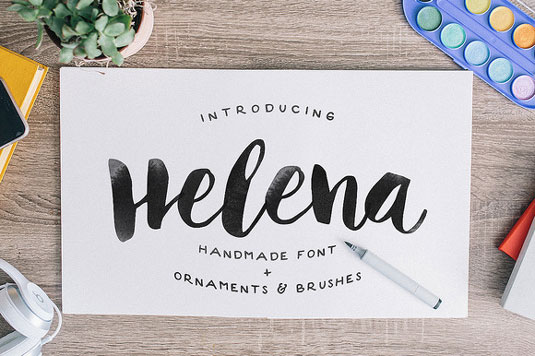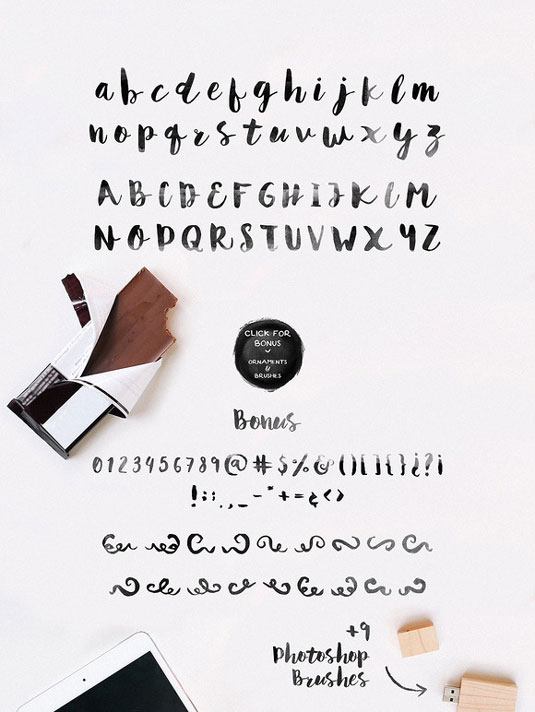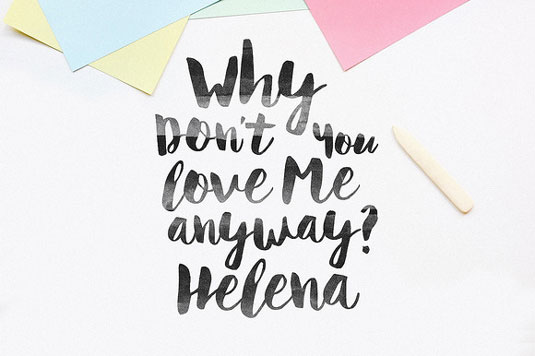
Font of the day: Helena
Helena by Noe Araujo
Give your designs an authentic handcrafted feel with today's typeface of choice, Helena. Created by Mexico-based designer Noe Araujo, Helena is perfectly suited to stationery, logos and much more.